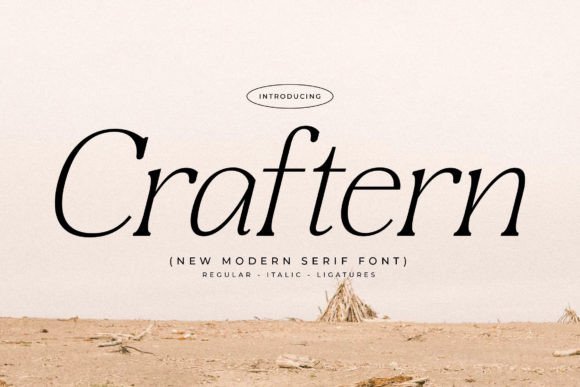
Discovering the Perfect Harmony of Classic and Modern
Have you ever found yourself lost in a sea of creative possibilities, searching for that one font that brings your design to life? Perhaps it’s the perfect serif to balance out your modern aesthetic, or the perfect sans-serif to add a touch of elegance. For designers, the quest for the ideal font is a never-ending journey, but what if I told you that you’ve just stumbled upon a hidden gem?
Introducing the Craftern Font, a timeless and versatile typeface that effortlessly blends classic sophistication with modern flair. Whether you’re crafting a luxurious logo, designing a book title, or creating a fashion brand, the Craftern Font is the perfect companion for your creative endeavors. Its unique style and modern look make it an invaluable asset for designers, allowing them to add a touch of sophistication to any project.
Craftern Font Key Features
- Font Family: Craftern Font comes in a variety of font families, including Regular, Bold, Italic, and Bold Italic.
- Character Set: Supports a wide range of characters, including Latin, Cyrillic, and Greek alphabets, making it suitable for multilingual designs.
- Unique Characteristics: Craftern Font features a unique blend of hand-drawn and digital elements, resulting in a distinctive, artisanal feel that sets it apart from other fonts.
Craftern Font Review
Overall, I was impressed with the Craftern Font, but like any font, it has its strengths and weaknesses.
- ✨ Unique blend of modern and vintage aesthetics, making it perfect for crafting a unique visual identity.
- ✨ Excellent for use in graphic design, especially for titles, headings, and other display text.
- ✨ A wide range of languages supported, making it a great choice for international projects.
- ⚠️ May be too ornate for certain designs, potentially overwhelming the layout.
- ⚠️ Limited flexibility in terms of font sizes, as it may lose its unique character at smaller or larger sizes.
- ⚠️ Some characters may require manual adjustments or additional formatting to achieve the desired look.
The Craftern Font is a solid choice for designers looking to add a touch of personality to their work. While it may not be suitable for every project, it’s a great option for those who want to stand out from the crowd. With some careful consideration and adjustments, I believe the Craftern Font can be a valuable addition to any designer’s toolkit.
Getting the Most Out of Craftern Font
For optimal results, use Craftern Font in conjunction with other creative assets, such as graphics and images.
Experiment with different font sizes, colors, and styles to create a unique visual identity.
Use Craftern Font to add a touch of elegance and sophistication to your designs.
Common Use Cases for Craftern Font
Craftern Font is ideal for:
Brand logos and identity
Marketing